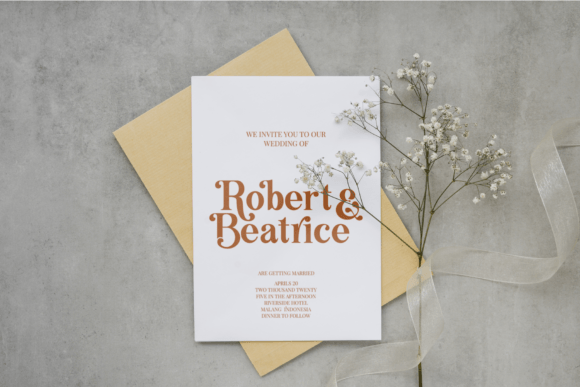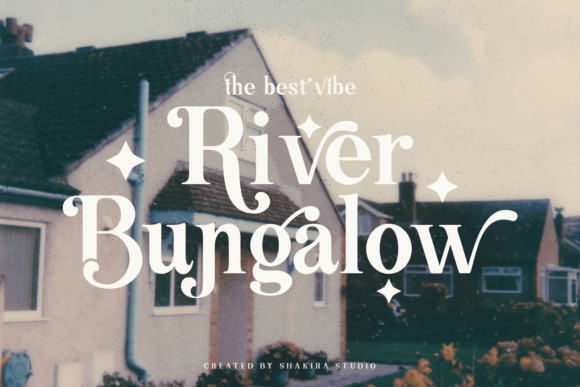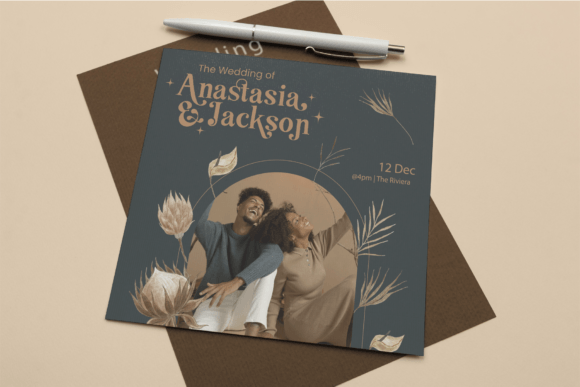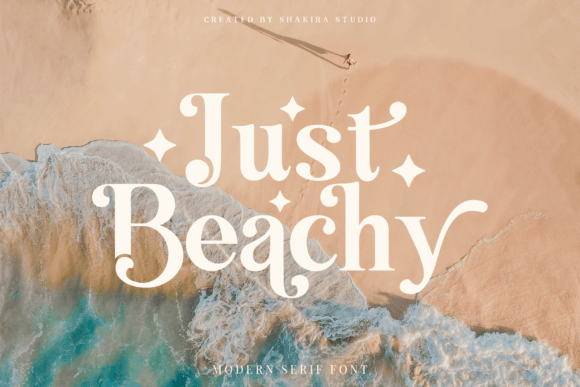
Introduction to Just Beachy Font
Just Beachy is a Modern serif font.
Create bold, gorgeous headlines and elegant designs with a vintage flair Its contrasting lines and curved terminals give a sleek, elegant look to logos, holiday cards, wedding invitations, quotes, advertisements, and more.